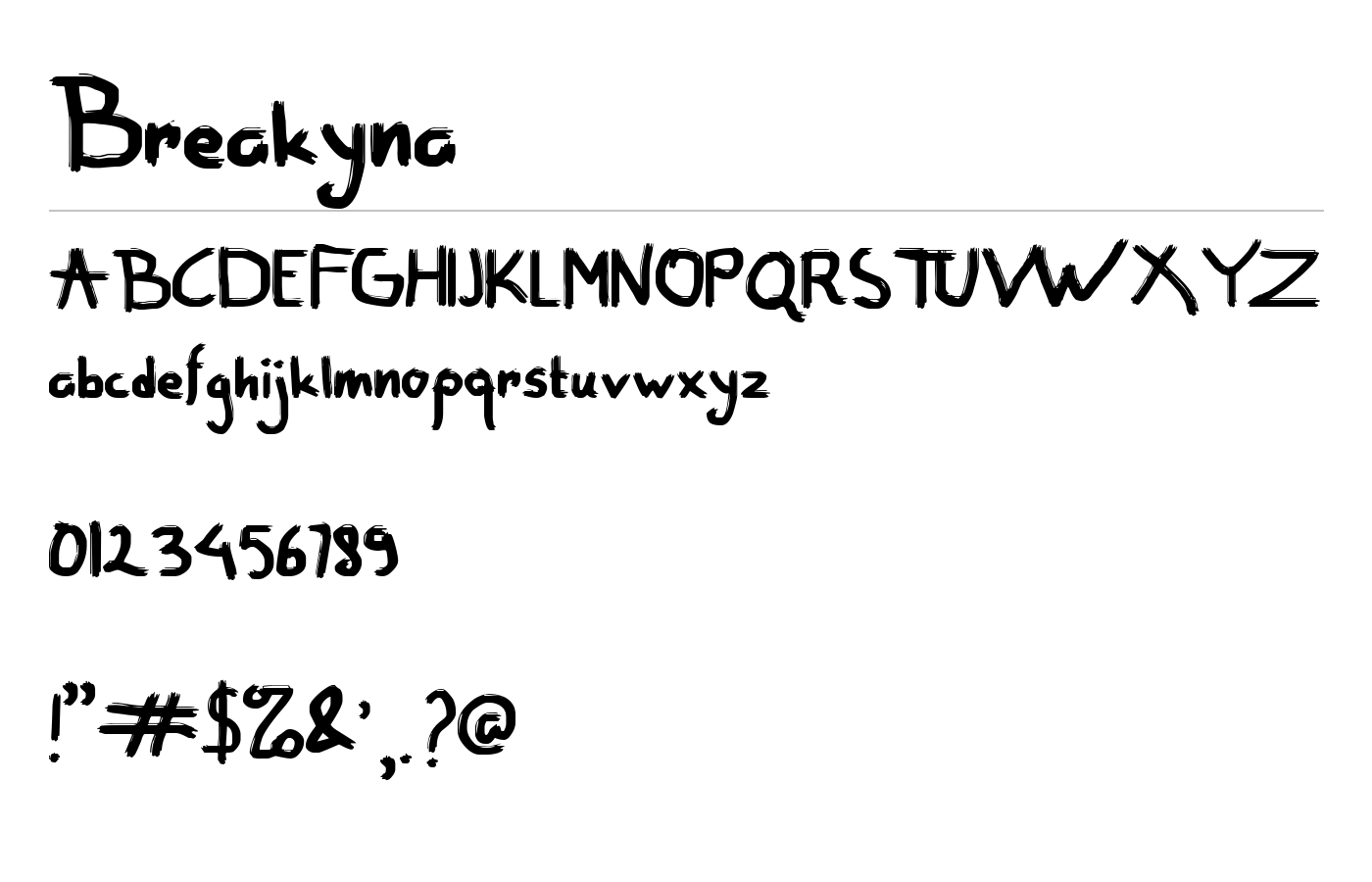
Breakyna Font
Breakyna Font is a handmade brush font typeface. It’s best to be used on poster, web header, book cover, packaging, and other design that needs strong and bold feels. it’s a regular style. This free typeface was designed by a talented Ahsancomp Studio. If you like it don’t forget to check out the full version.